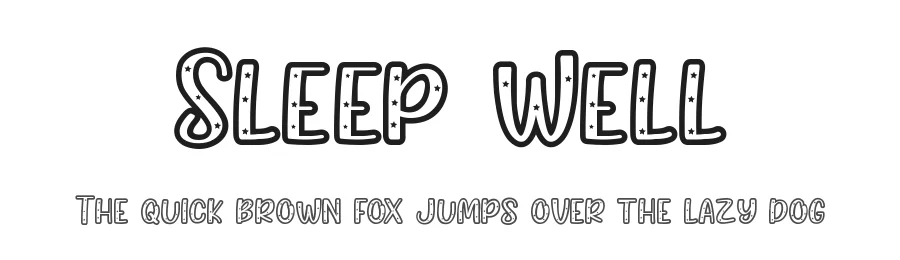
About Cat Whiskers Font
| Designer | Fajar Wicaksono |
Cat Whiskers Font is a decorative font that shines as a display or heading face. Pair it with a clean sans-serif or serif font for body text β the contrast creates a clear hierarchy while the two styles stay balanced and easy to read.
Cat Whiskers Font
by Booga Letter